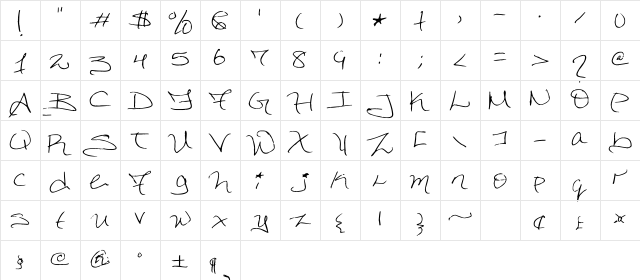
DorkifiedDistortion Regular
Design Context for DorkifiedDistortion Typeface
DorkifiedDistortion is a composed and adaptable typeface that performs quietly and consistently across a wide range of design contexts.